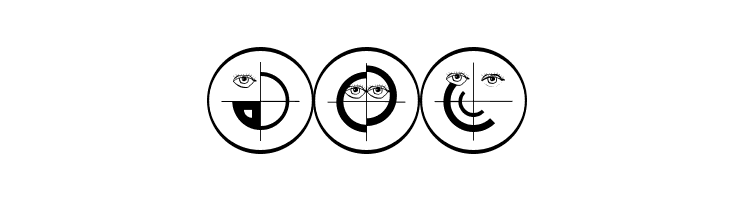
SF Slapstick Comic Shaded Font
A playful, comic-inspired font with bold, shaded letterforms.
Milford Bold Italic Font
A bold, italicized typeface with a modern, dynamic style.
Woodshop Font
A bold, industrial-style font with thick strokes and angular serifs.
ModifiedbyKEMAL Font